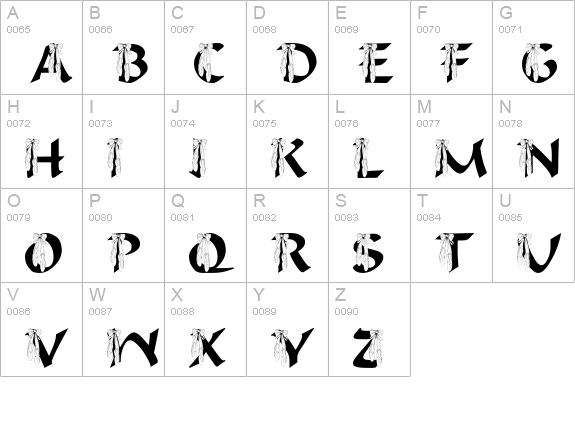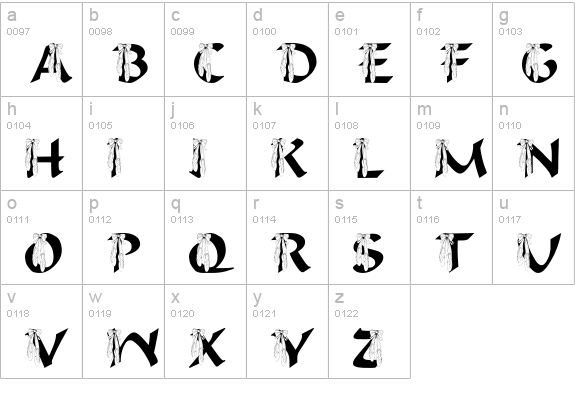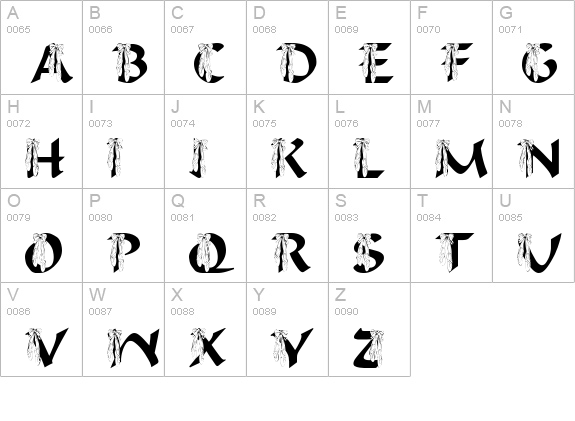
LMS I Hope You Dance font is a whimsical and playful typeface that exudes a sense of joy and positivity. Its charming hand-drawn style adds a unique touch to any design project, making it perfect for invitations, greeting cards, and other creative endeavors. The flowing lines and organic feel of this font evoke a sense of movement and grace, just like a dance. One of the best things about LMS I Hope You Dance font is that it is completely free to download. You can easily access this delightful font at FontsMarket.com, where you can add it to your collection without any cost. Embrace the beauty and elegance of this font in your designs and let it bring a touch of whimsy to your creations. Let LMS I Hope You Dance font inspire you to dance through life with joy and creativity.